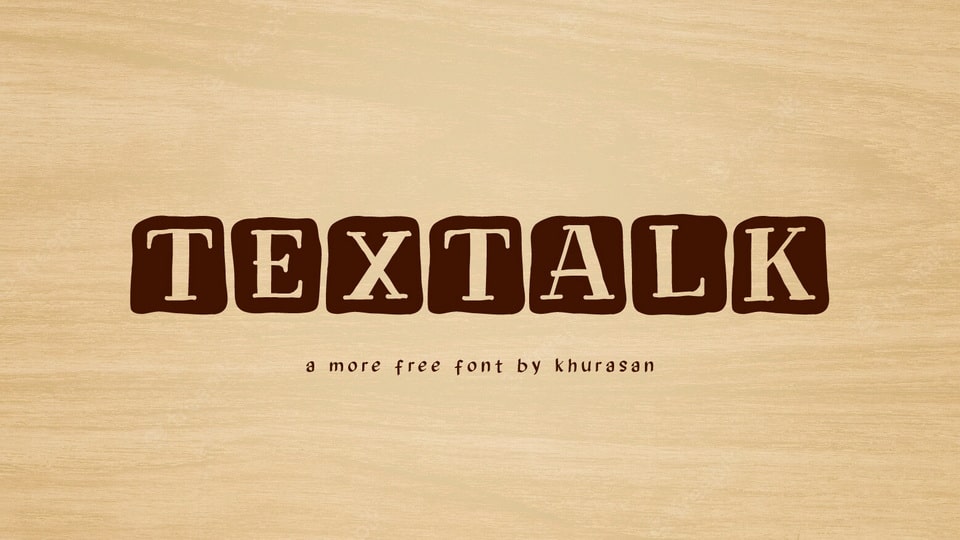
Download Textalk font, a handcrafted font that brings the charm of toy blocks to your designs. This captivating typeface emulates the appearance of cut out look, evoking memories of childhood playtime and creative exploration.